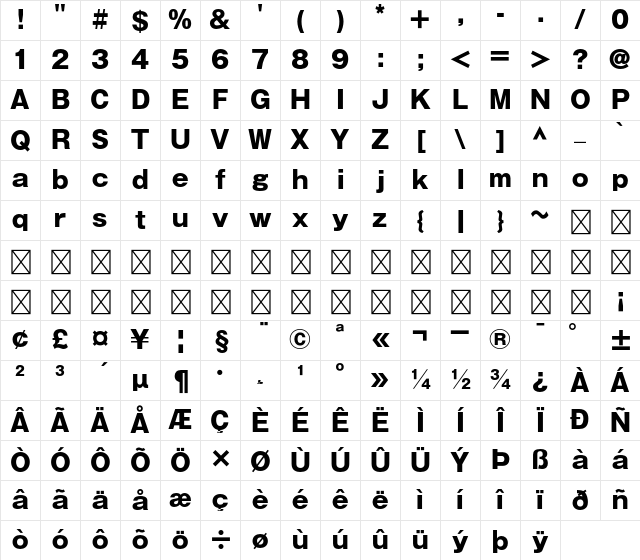
A-OTF Gothic MB101 Pr6 H
Style: H
Complete A-OTF Gothic MB101 Pr6 H glyph index. Displaying only characters natively supported by A-OTF Gothic MB101 Pr6 H font.
Design Context for A-OTF Gothic MB101 Pr6
A-OTF Gothic MB101 Pr6 takes a clean, functional approach - its unadorned letterforms prioritise legibility and work reliably across screen and print environments.
Font Pairing: Works well alongside a characterful serif or display font that can carry the expressive load while A-OTF Gothic MB101 Pr6 handles the functional copy.
Pro Tip: Use A-OTF Gothic MB101 Pr6 for UI labels, navigation, and short-form body copy where clean legibility is the priority.